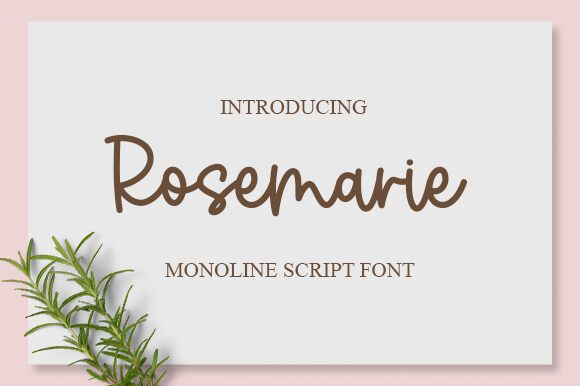
Rosemarie
Rosemarie font designed by Graphix Line Studio is a neat authentic typeface with a natural look. Each character has an individual style that makes the collected work of art as beautiful as each letter is. This free handwritten font has everything small design projects need to appear friendly and approachable, modern, and connected to nature.
Our list of projects where this font would shine is endless; however, we will try to choose the best ones for you. Your first tasks can include greeting cards, short quotes and phrases beloved Instagram posts need, T-shirts & other clothes prints, packages for cosmetic products, mugs with motivational lettering design to start your morning with conquering spirit and much more!